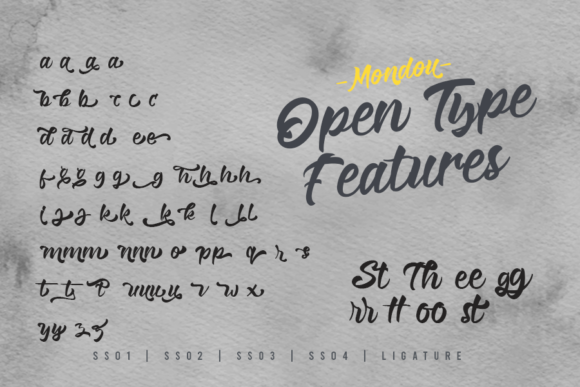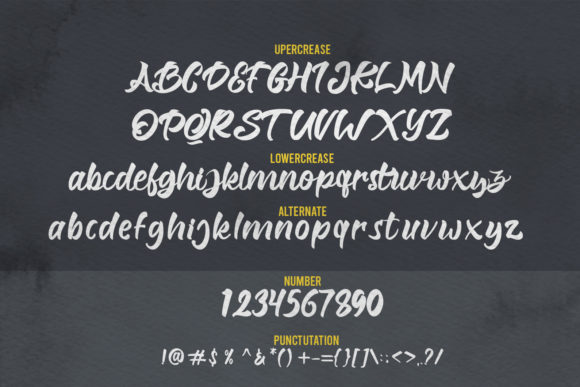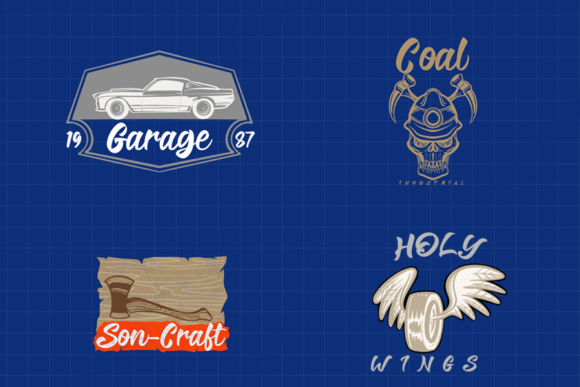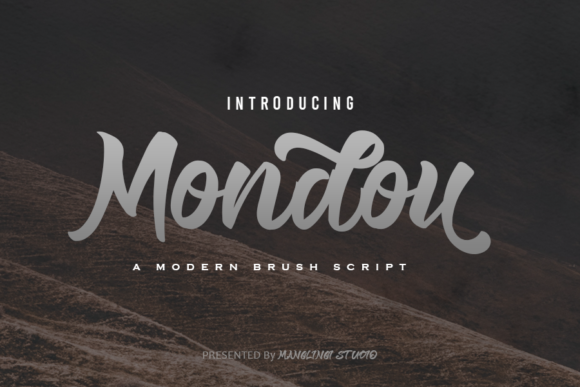
Introduction to Mondou Font
Mondou is a flowing and beautiful handwritten font.
Its distinct and well rounded letters make this font a masterpiece Fall in love with its incredibly versatile style and use it to create spectacular designs.
Key Features of Mondou Font
Why Choose Mondou Font?